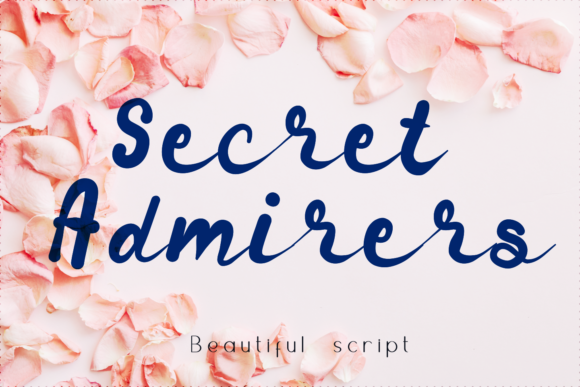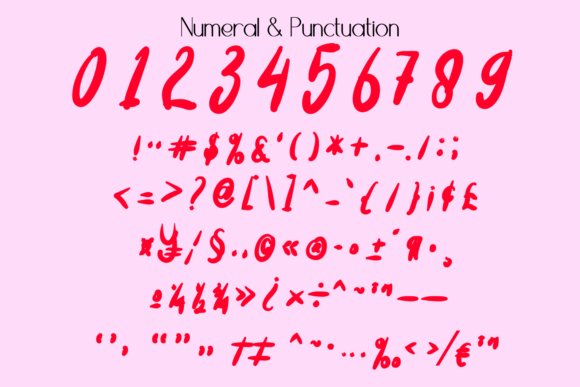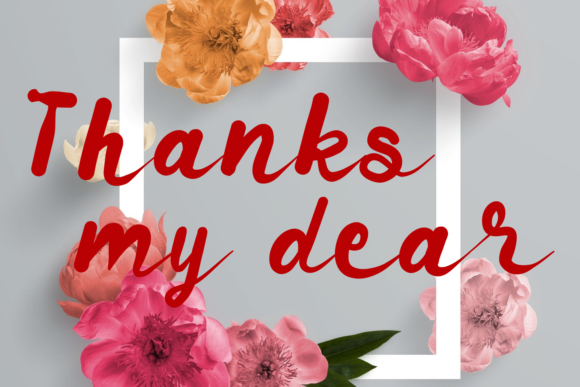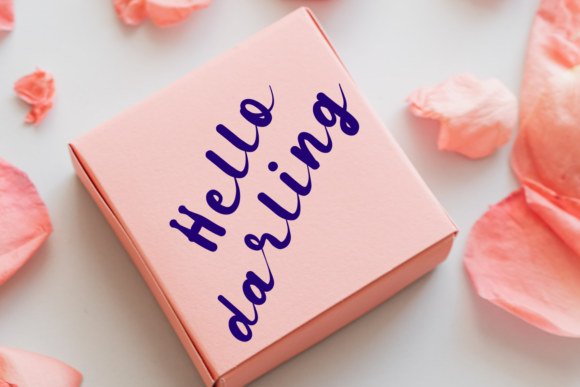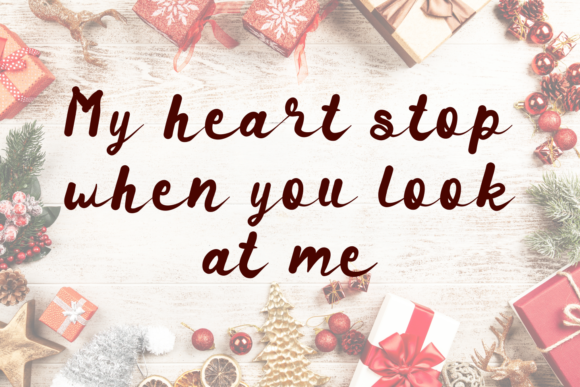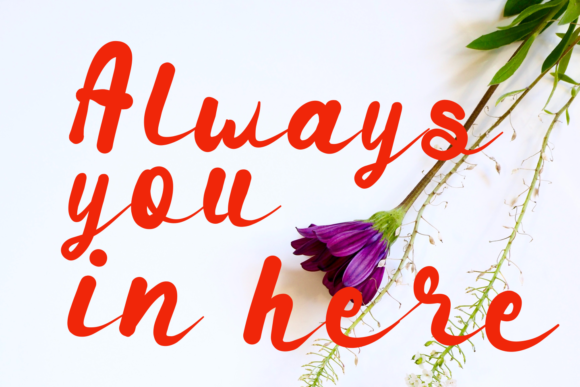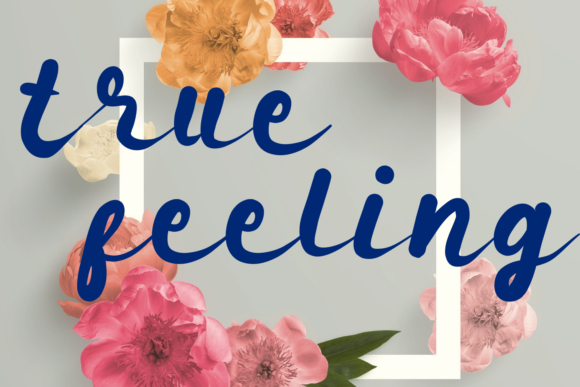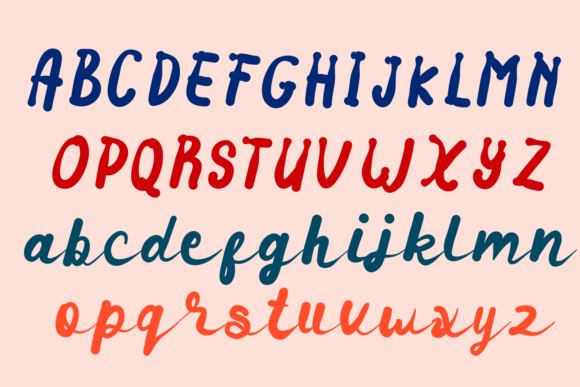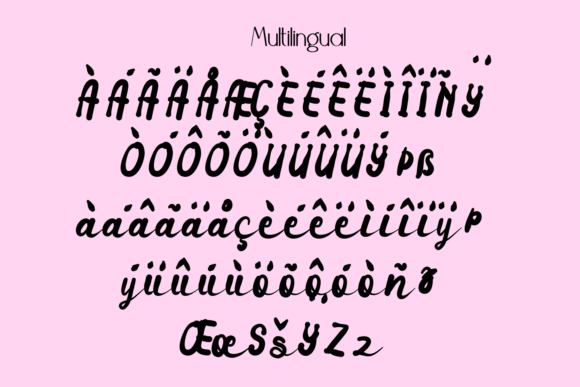
Secret Admirer Font
Secret Admirer is a beautiful script font with a modern calligraphy style. Whether you’re looking for fonts for Instagram or calligraphy scripts for DIY projects, Secret Admirer will turn any creative idea into a true piece of art!